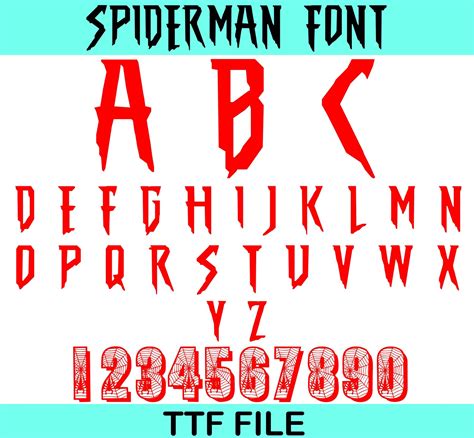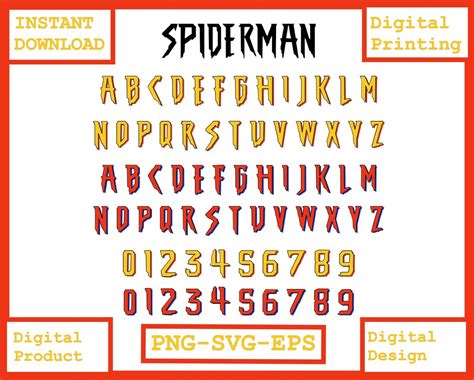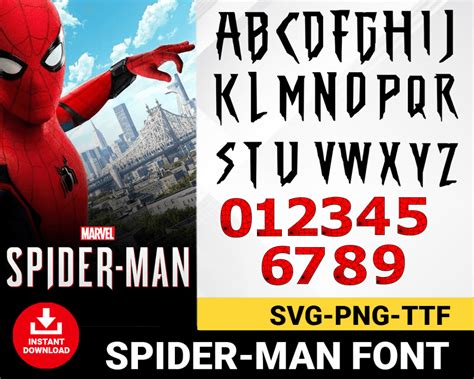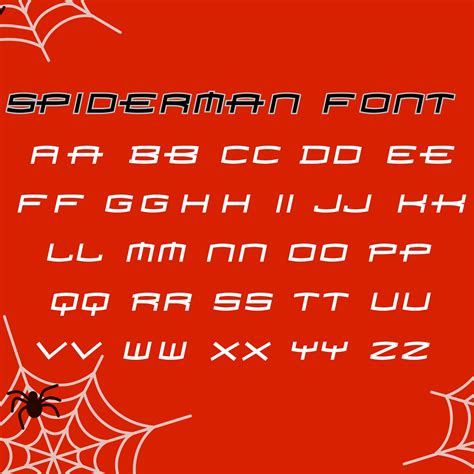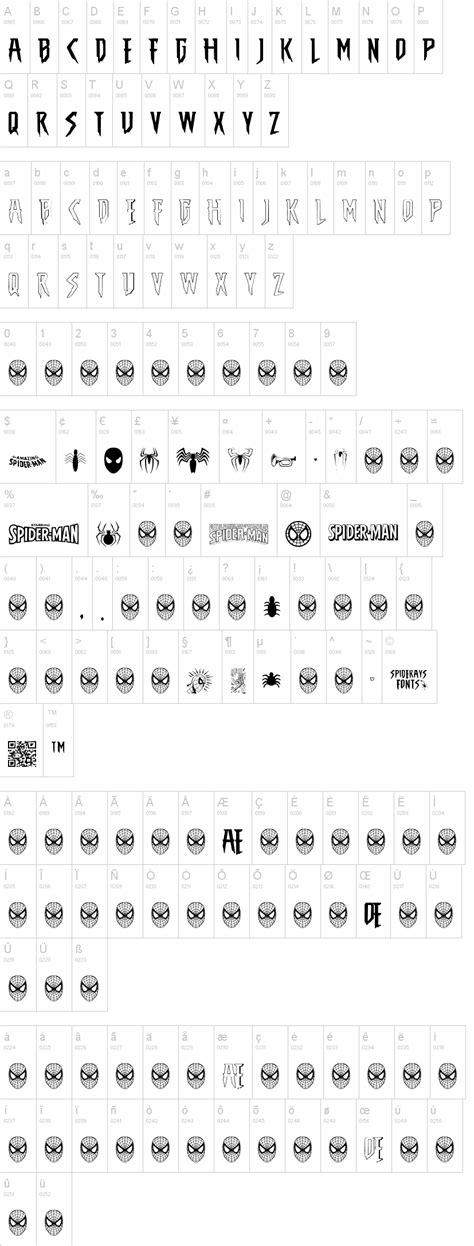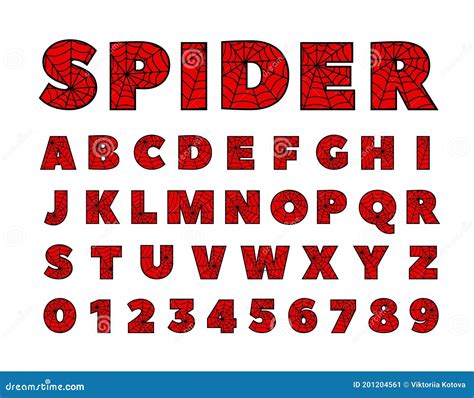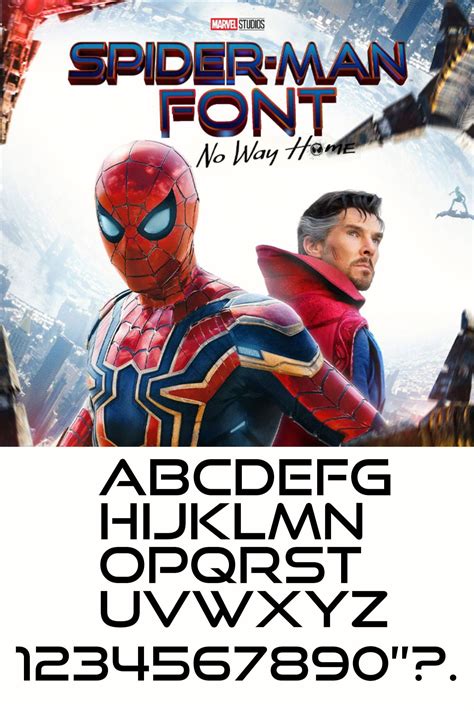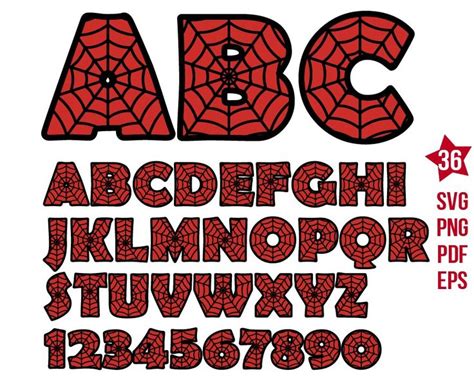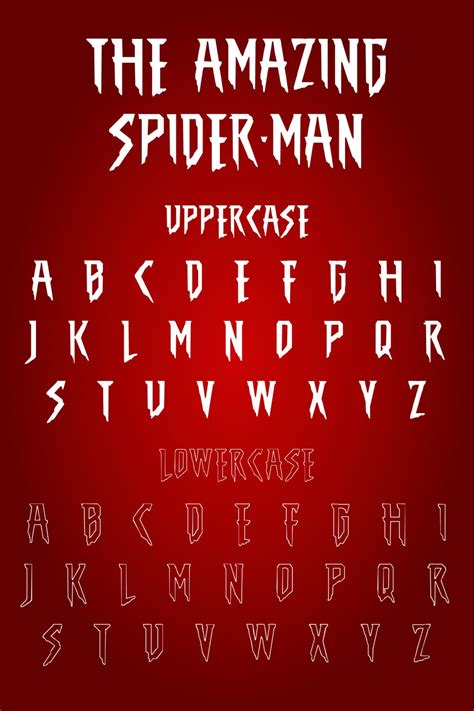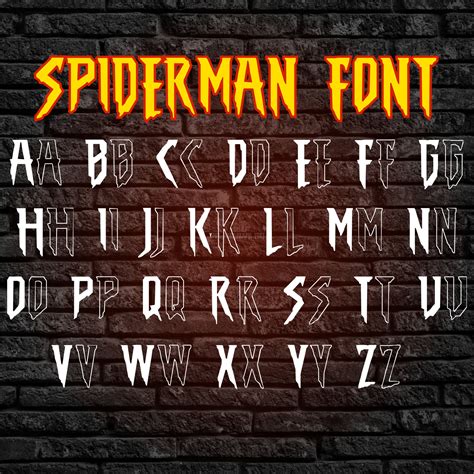
SPIDER MAN FONT
The world of typography offers a vast array of fonts, each with its unique style and personality. Among these, the spider man font stands out as a captivating and distinctive choice. This font is inspired by the iconic superhero, Spider-Man, and captures the essence of his character through its design.
The font itself is a creative blend of various elements, incorporating web-like patterns and dynamic curves to evoke the famous spider-web motif. It is designed to be both visually appealing and legible, making it suitable for a wide range of applications.
One of the key benefits of using the spider man font is its ability to evoke a sense of adventure and excitement. The unique design elements can add a touch of superhero flair to any project, whether it's a comic book, a website, or a marketing campaign. Its versatility allows for creative expression, making it a popular choice for designers and enthusiasts alike.